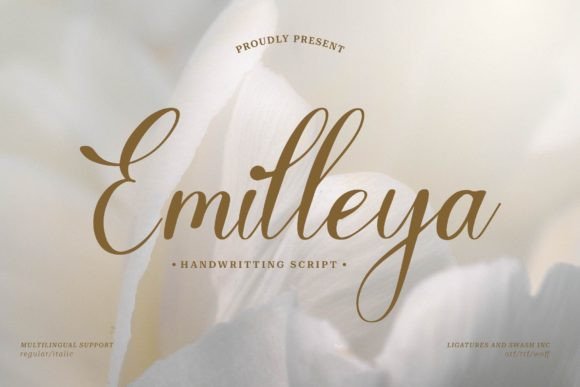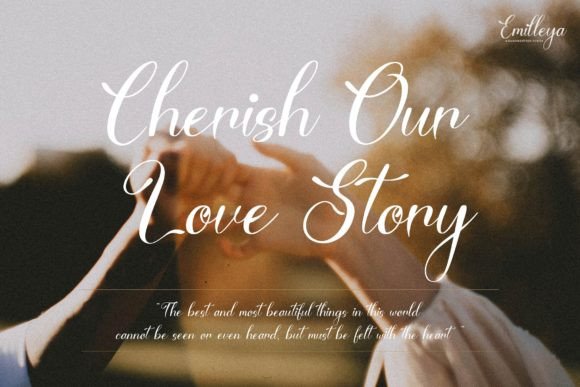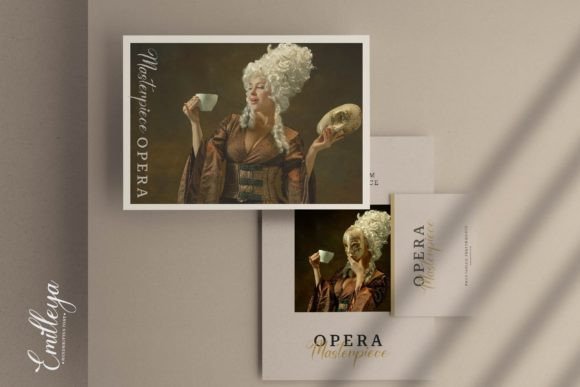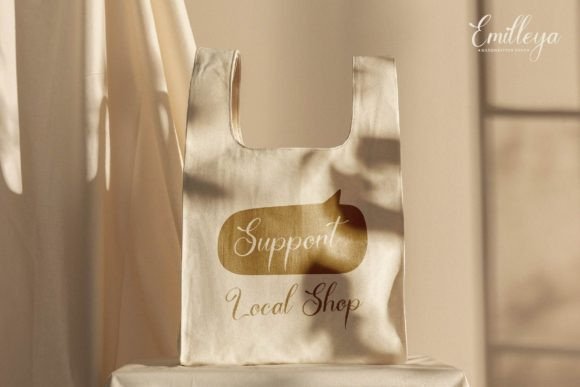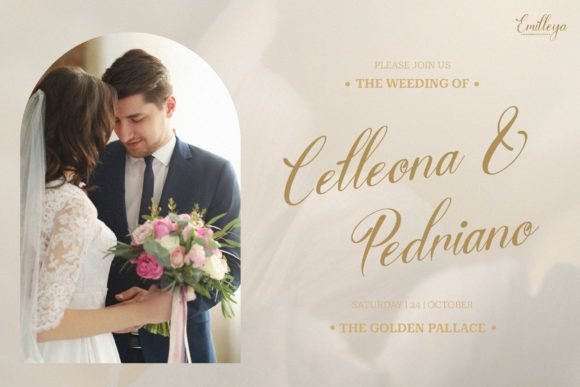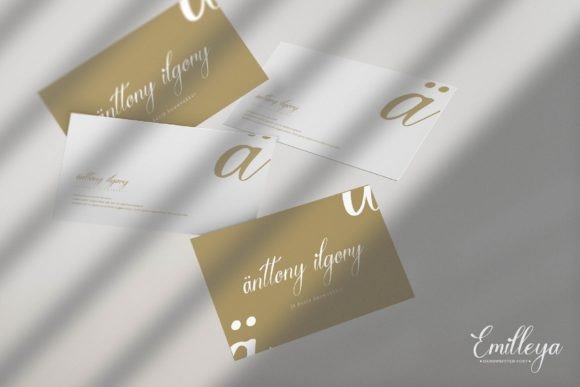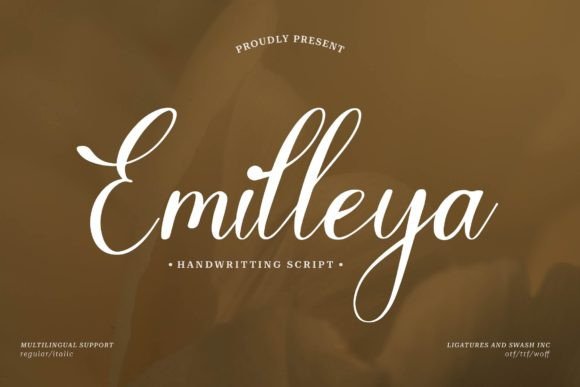
Introducing Emilleya Font: Elevate Your Designs with Elegance and Charm
In the world of typography, few fonts capture the essence of elegance and charm as beautifully as Emilleya. This stunning script font is designed to bring a touch of sophistication and style to any design project. Whether you’re working on invitations, logos, or any other creative endeavor, Emilleya is the perfect choice for those who appreciate the art of beautiful lettering.
The Beauty of Emilleya
Emilleya is a beautiful and elegant script font that features smooth, flowing letters that look graceful and stylish. Each character is carefully crafted to ensure a seamless flow, creating a sense of continuity and harmony in your designs. The font’s elegant appearance makes it ideal for projects where you want to make a lasting impression.
Key Features of Emilleya Font
- Elegant Script Style: Emilleya boasts a classic script style that exudes elegance and sophistication.
- Smooth and Flowing Letters: The font features smooth, flowing letters that create a beautiful visual effect.
- Perfect for Various Designs: From invitations and logos to branding and packaging, Emilleya is versatile enough to enhance any design project.
- Easy to Read: Despite its elegant appearance, Emilleya remains highly legible, making it suitable for both headings and body text.
Uses of Emilleya Font
Emilleya’s versatility makes it an excellent choice for a wide range of design projects. Here are some popular uses for this beautiful font:
- Invitations and Wedding Stationery: Add a touch of elegance to your wedding invitations, save-the-date cards, and other stationery with Emilleya.
- Logo Design: Create a memorable and stylish logo for your business or brand using Emilleya.
- Branding and Packaging: Use Emilleya to create a cohesive and sophisticated brand identity.
- Signage and Displays: Emilleya is perfect for creating eye-catching signage and displays that require a touch of elegance.
Tips for Using Emilleya Font
To get the most out of Emilleya, consider the following tips:
- Pair with Complementary Fonts: Combine Emilleya with clean, sans-serif fonts to create a striking contrast.
- Experiment with Colors: Emilleya looks stunning in a variety of colors, from soft pastels to rich jewel tones.
- Play with Size and Style: Use Emilleya in different sizes and styles to create visual hierarchy and add emphasis to your designs.
Emilleya is a beautiful and elegant script font that can elevate your designs to new heights. With its smooth, flowing letters and classic style, it’s perfect for adding a touch of beauty and charm to any project. Whether you’re a designer, crafter, or DIY enthusiast, Emilleya is a valuable addition to your font collection.